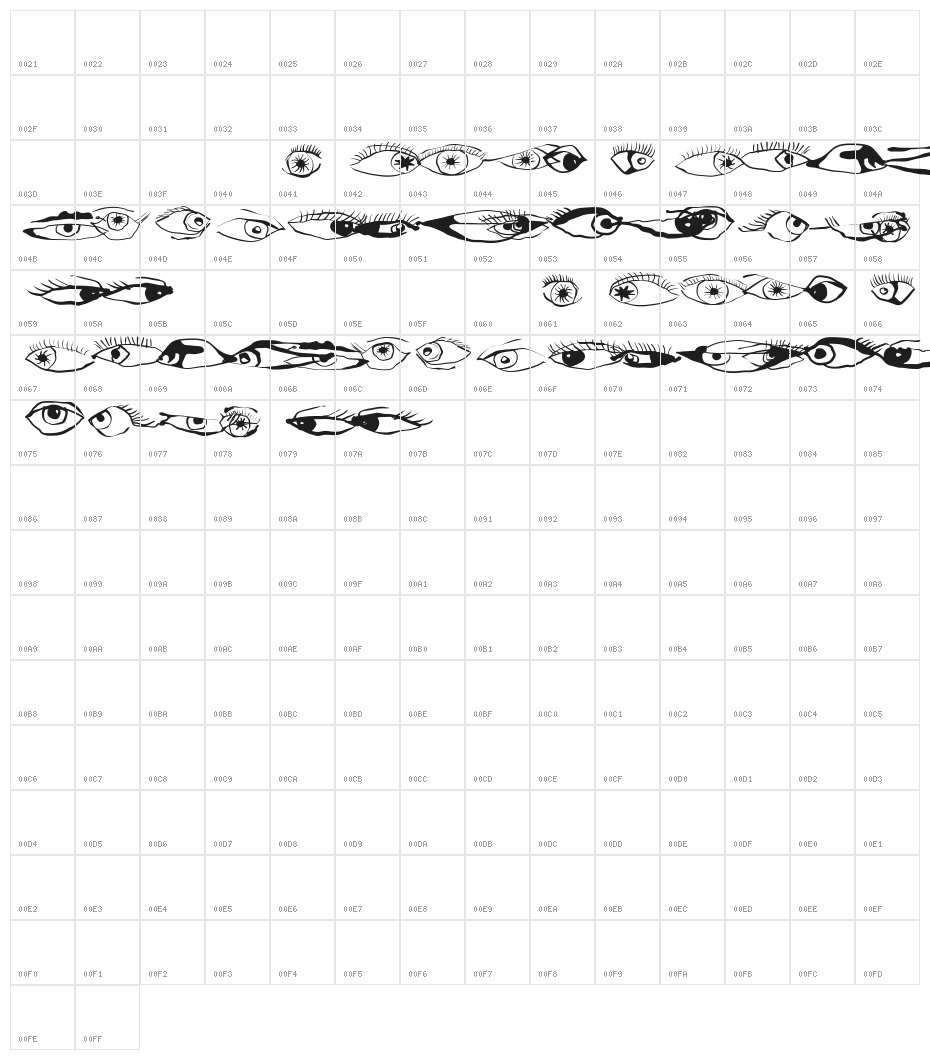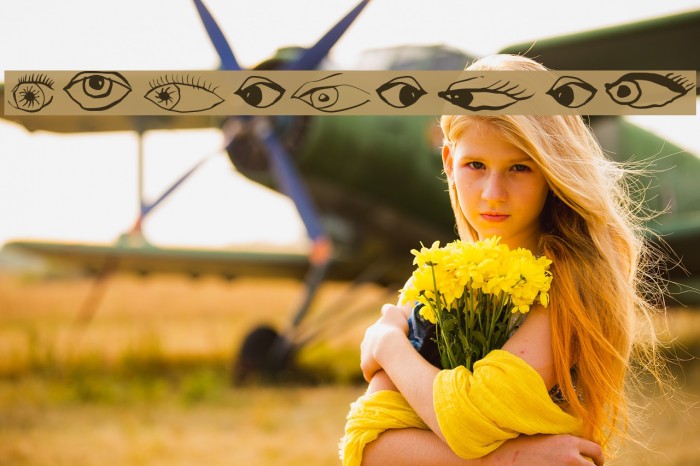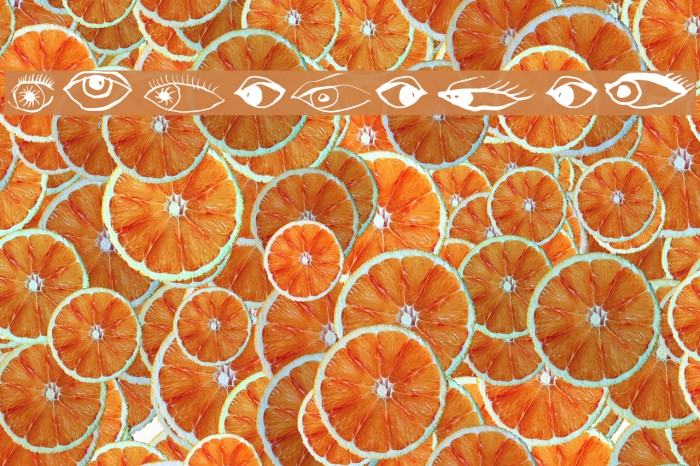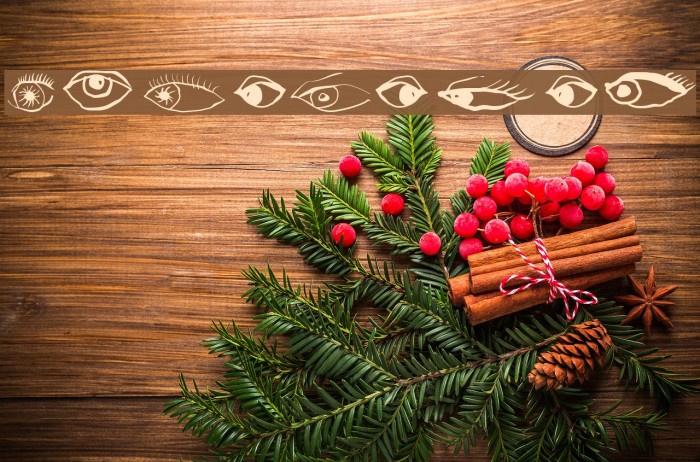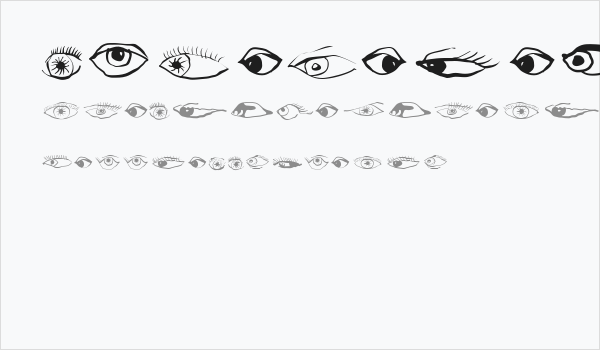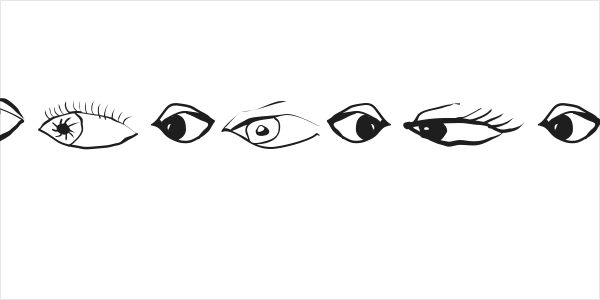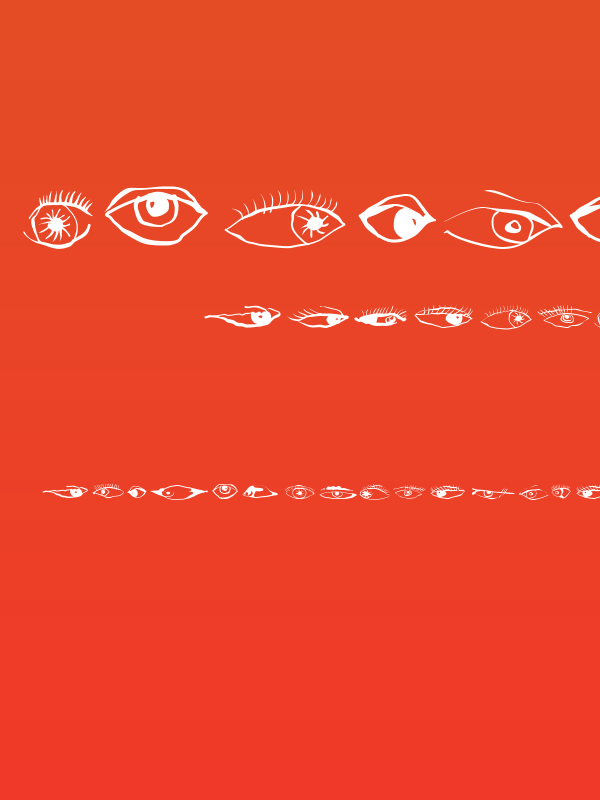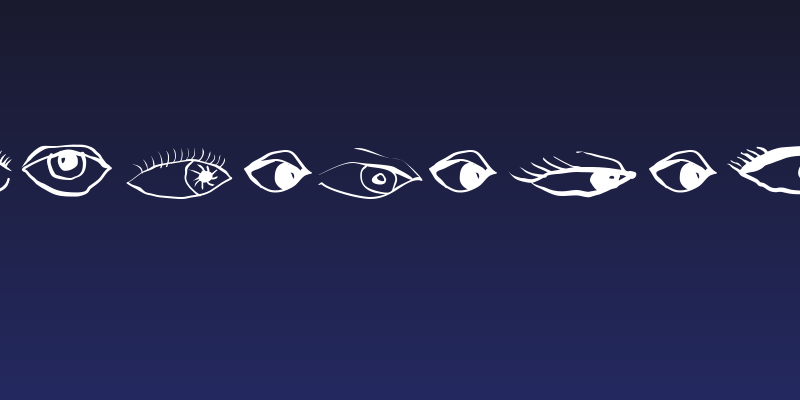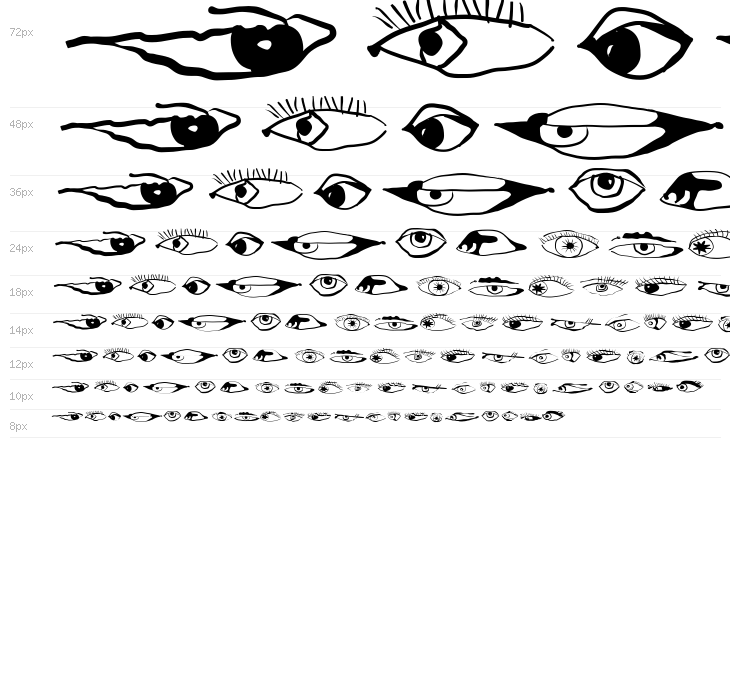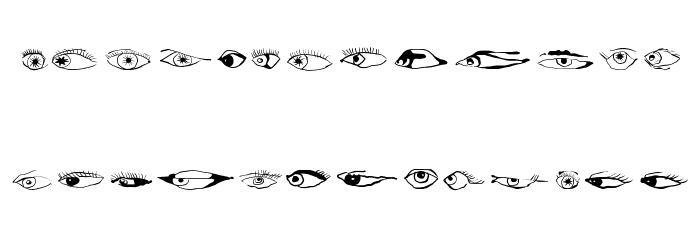
AugenEyes Font
AugenEyes Description
A decorative dingbat font featuring a variety of stylized eye illustrations, each character represented by a unique eye design with differing shapes, line weights, and details.
| Overall Style | Decorative, Artistic, Playful |
| Use Case | Logos, Posters, Decorative elements, Thematic designs |
| Proposed Projects | Posters, album covers, art projects, branding for creative industries, visual identity for eye care or vision-related businesses, and editorial illustrations. |